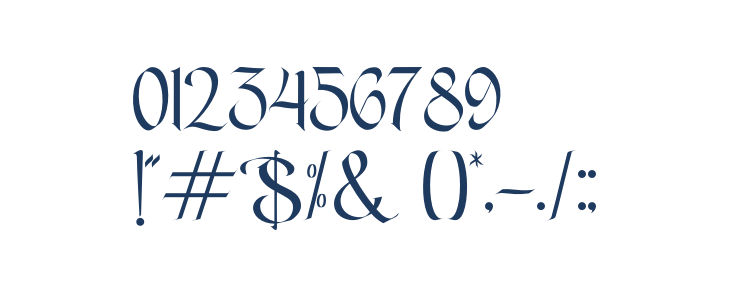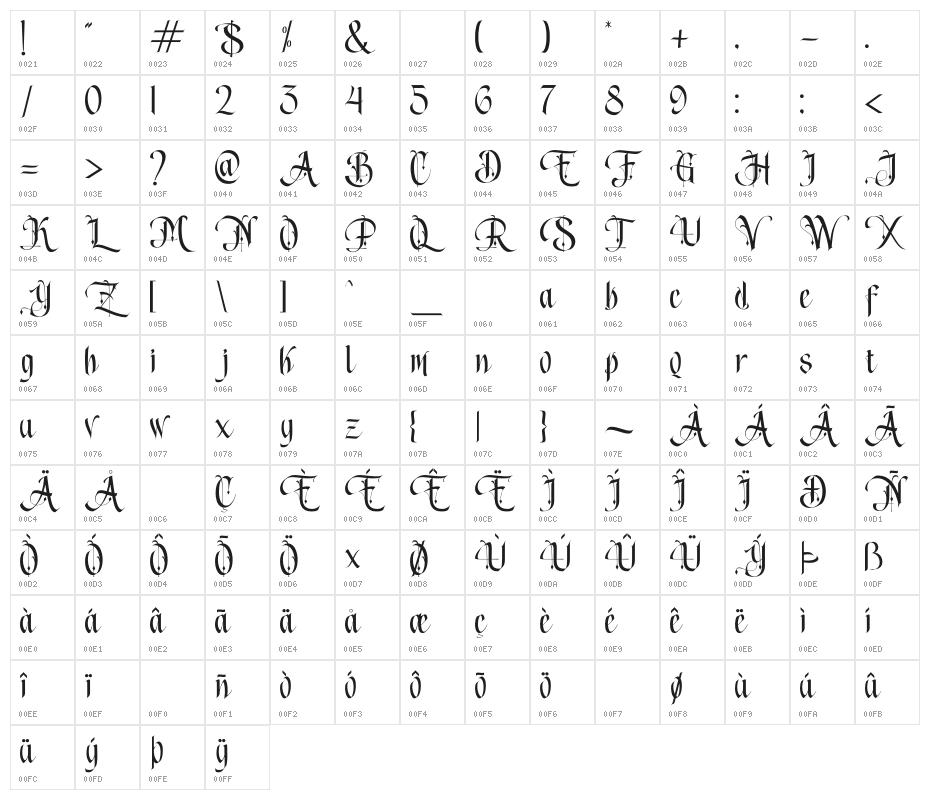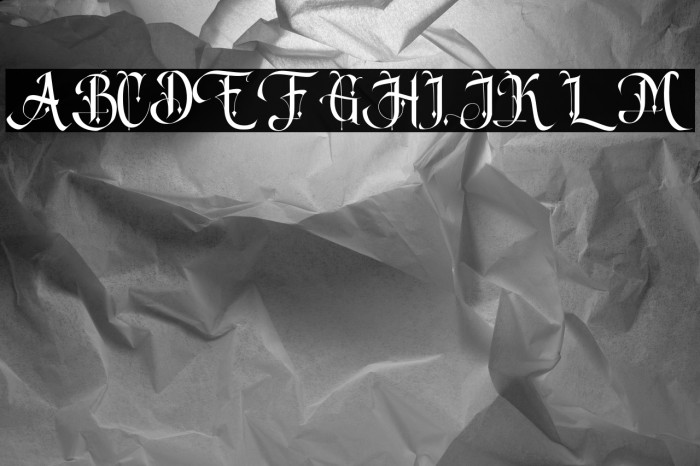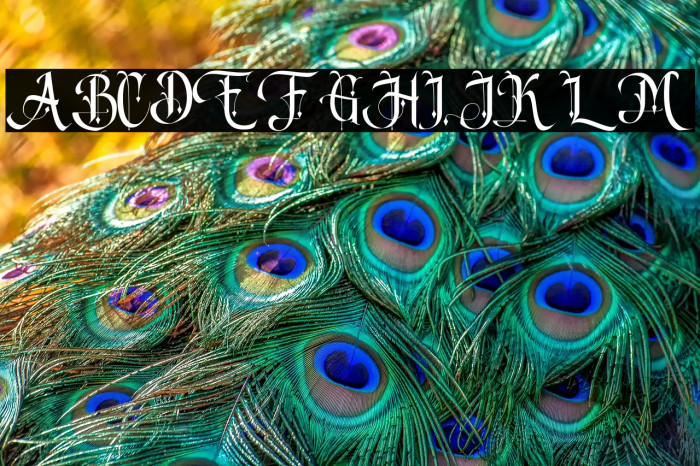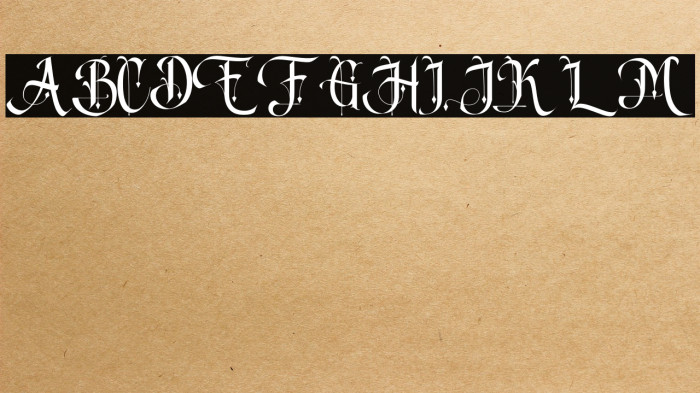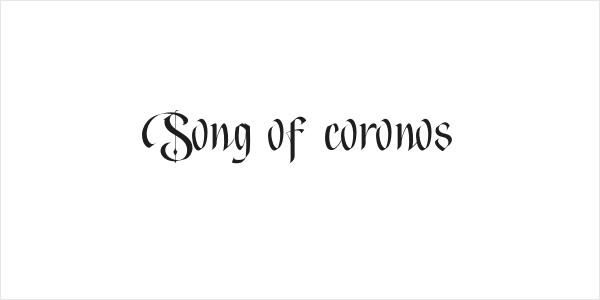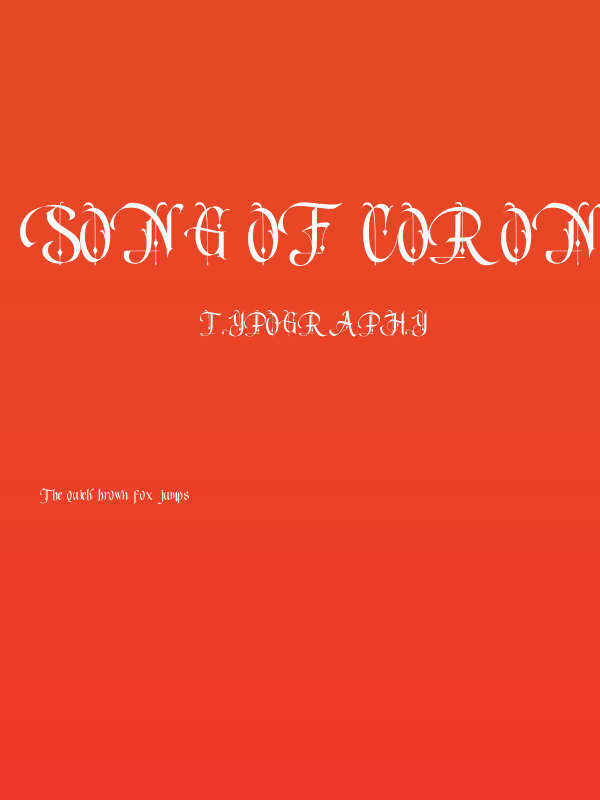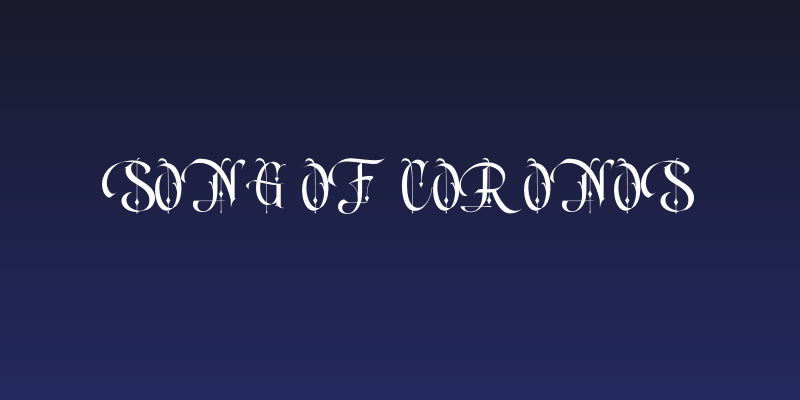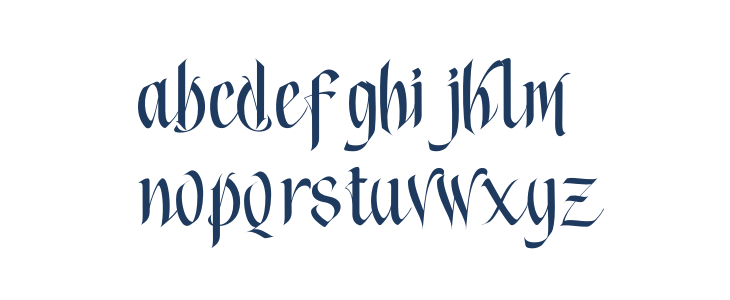
Song of coronos Font
Song of coronos Description
This font features an intricate and decorative style, reminiscent of traditional calligraphy with a modern twist. The uppercase letters are adorned with elaborate flourishes and swashes, giving them a regal and ornate appearance. The lowercase letters maintain a more streamlined yet elegant form, with subtle curves and angles that enhance readability. The numerals are bold and consistent, matching the overall aesthetic of the alphabet. Special characters are designed with the same attention to detail, ensuring a cohesive look across all glyphs. The font's high contrast between thick and thin strokes adds to its dramatic and eye-catching appeal.
| Proposed Projects | Ideal for wedding invitations, luxury branding, certificates, and artistic posters. |